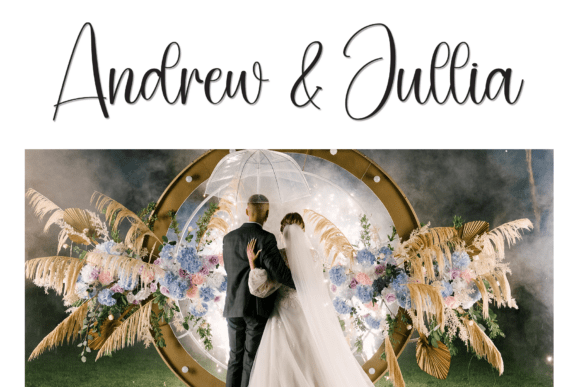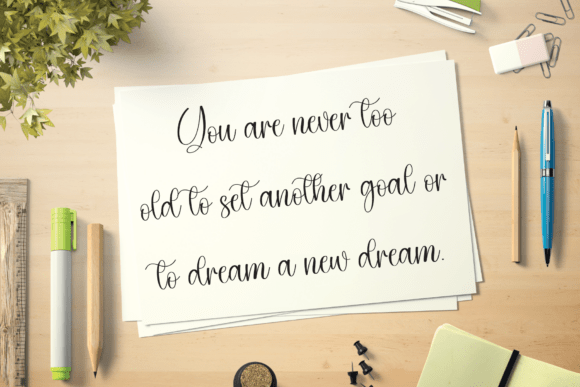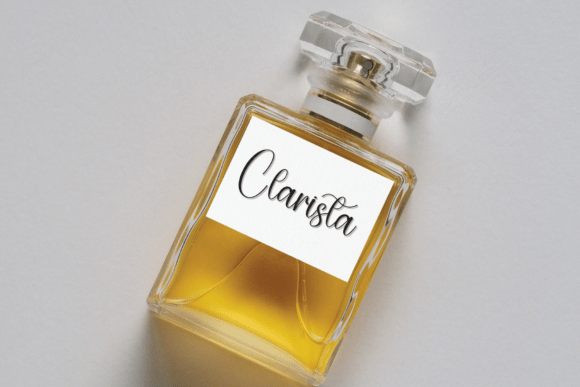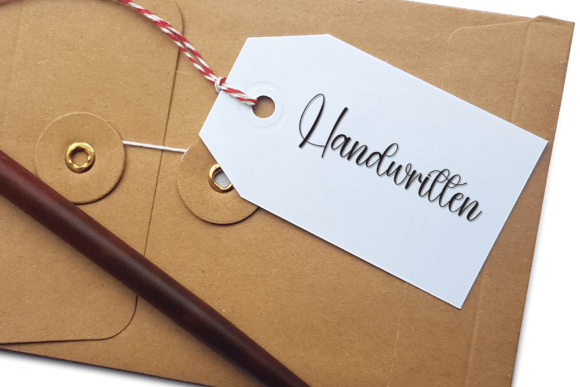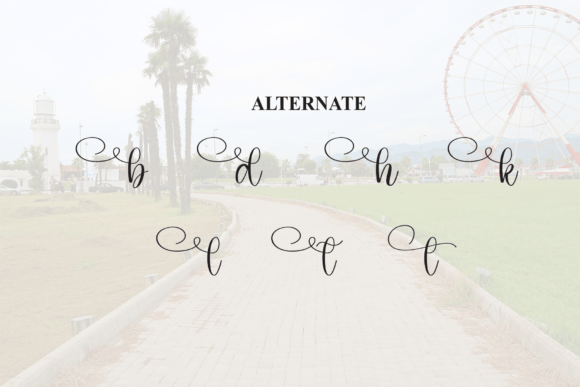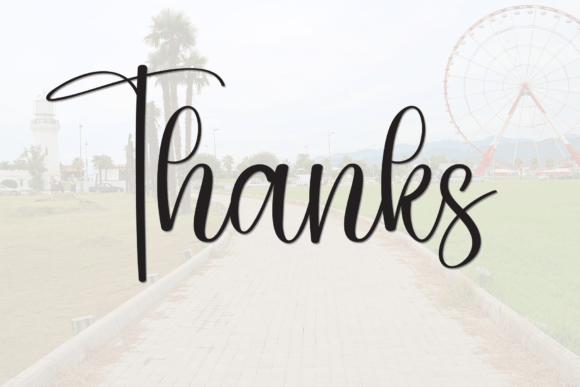
Introduction to Scoothland Font
Travel to a world of luxury and tradition with the Scoothland font, a premium handwritten typeface that flows with the grace of a master calligrapher.
This Scoothland typeface features long, sweeping swashes and delicate connections that create a sense of movement and high-class sophistication Designed for luxury invitations, high-end branding, and signature logos, the Scoothland font adds an artisanal quality that digital fonts rarely achieve.